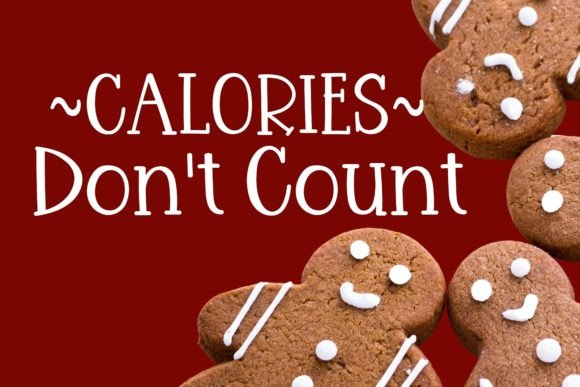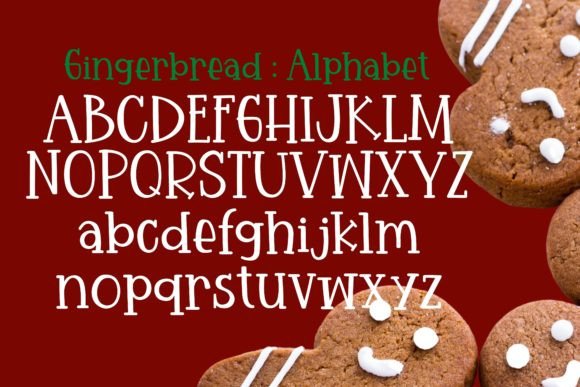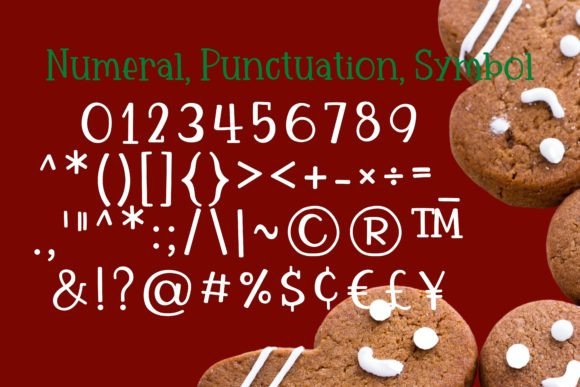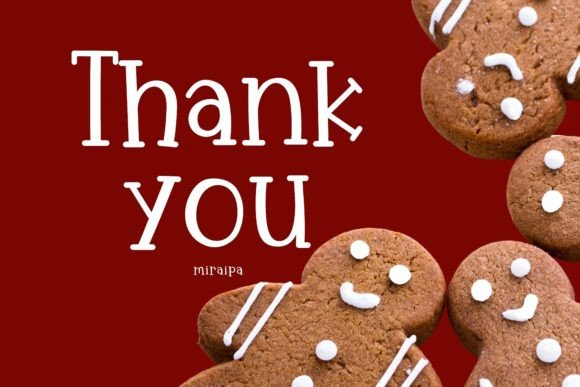
The Magic of Gingerbread Font: A Friendly Serif for Creative Projects
Have you ever been in the middle of a design project, and suddenly, the font just doesn’t feel right? You’re not alone! I recall a particularly frustrating experience while working on a client’s wedding invitation. The design was beautiful, but the font was just…off. That’s when I stumbled upon the charming Gingerbread Font. Its friendly and cute serif style instantly won me over, and I’ve been hooked ever since!
An Honest Review: The Good and the Quirks
Let’s dive into what makes Gingerbread Font so lovable and where it might have a few quirks.
- ✨ Friendly and approachable vibe, perfect for projects that need a warm touch
- ✅ Highly versatile for various design projects, from diaries and planners to party decorations and greeting cards
- 🎉 Supports OpenType features, allowing for creative exploration
While Gingerbread Font is delightful, there are a couple of things to keep in mind:
- ⚠️ Some users might find the serifs a tad too pronounced for certain digital applications
- 🤔 Limited availability of stylistic alternates, which might restrict design variations
While the actual origins of Gingerbread Font remain unclear, it’s easy to imagine a designer inspired by the warmth and coziness of holiday treats. Perhaps a late-night baking session sparked the idea for a font that’s as inviting as a fresh-baked gingerbread cookie.
Q: What makes Gingerbread Font suitable for child-related designs?
A: Its friendly and cute serif style gives it a playful and approachable vibe, making it perfect for projects aimed at children or with a youthful theme.
Q: How does Gingerbread Font compare to other serif fonts?
A: Gingerbread Font stands out due to its unique blend of friendliness and cuteness, setting it apart from more traditional serif fonts.
Adding Gingerbread Font to your collection can undoubtedly bring a fresh and friendly touch to your DIY projects. Its versatility and charm make it an excellent choice for a wide range of creative endeavors.